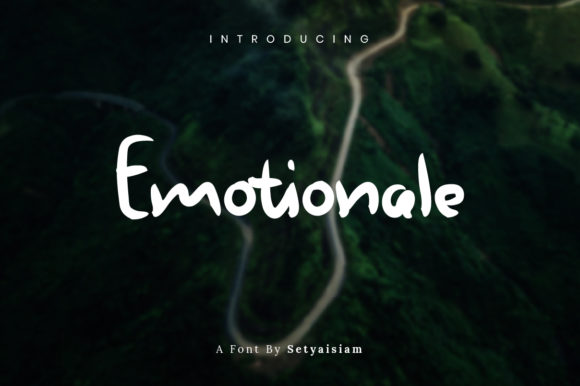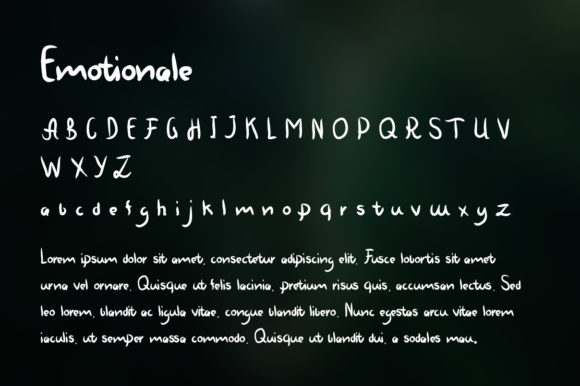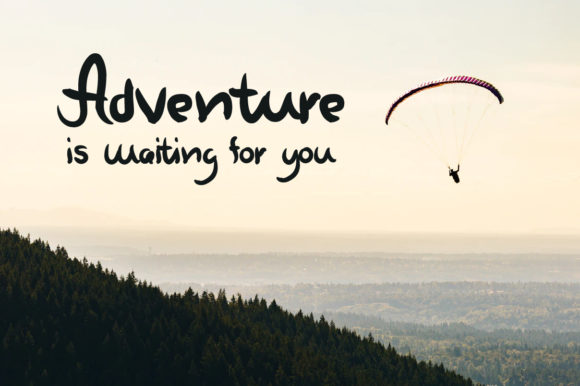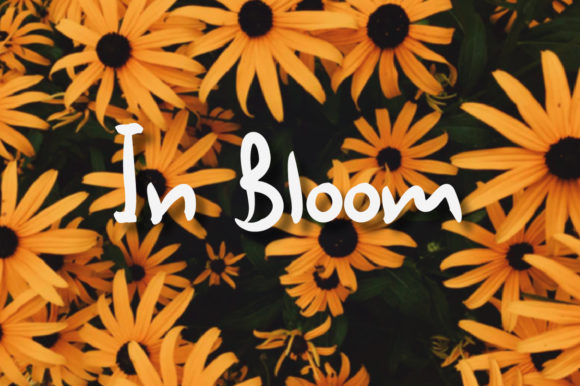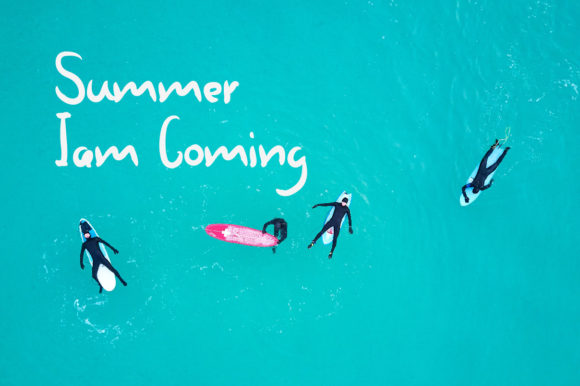
Emotionale Font
About Emotionale Font
Emotionale looks bold, yet sophisticated. This handwritten font will look particularly adept when used in logos, branding, packaging design, and much more. This masterfully designed font is a true must-have.